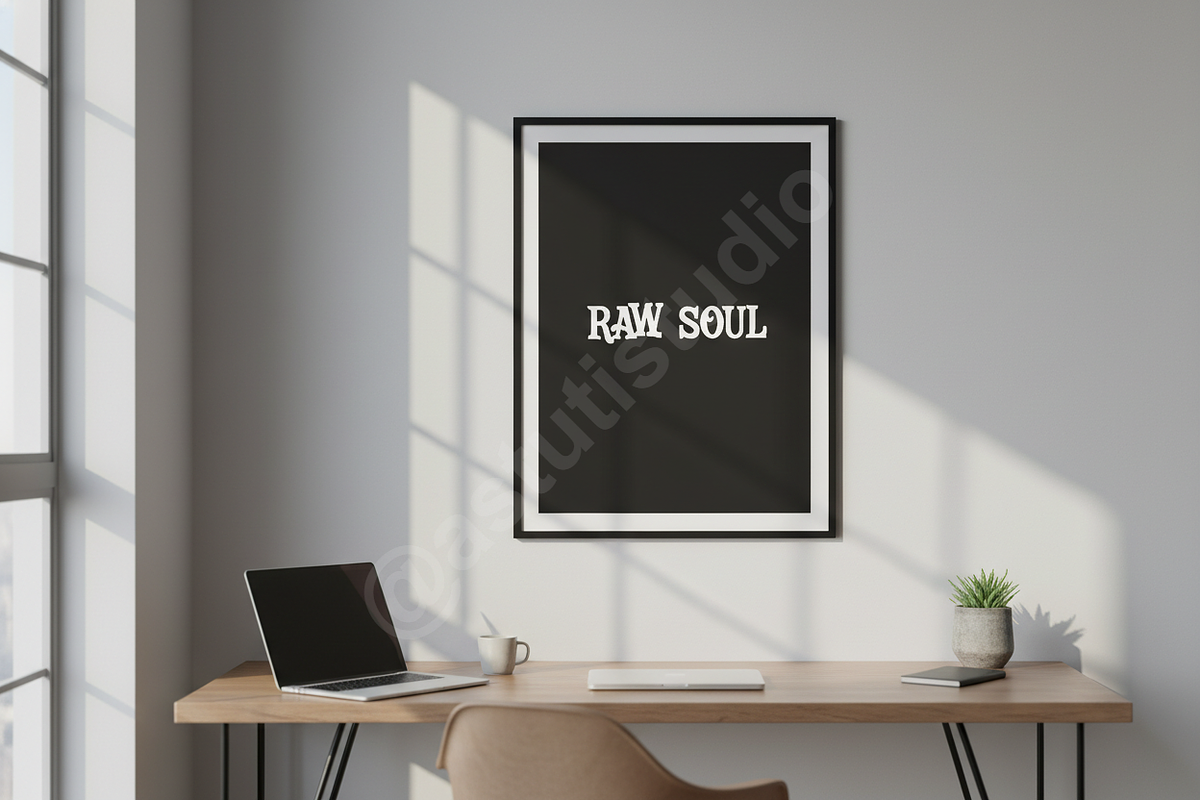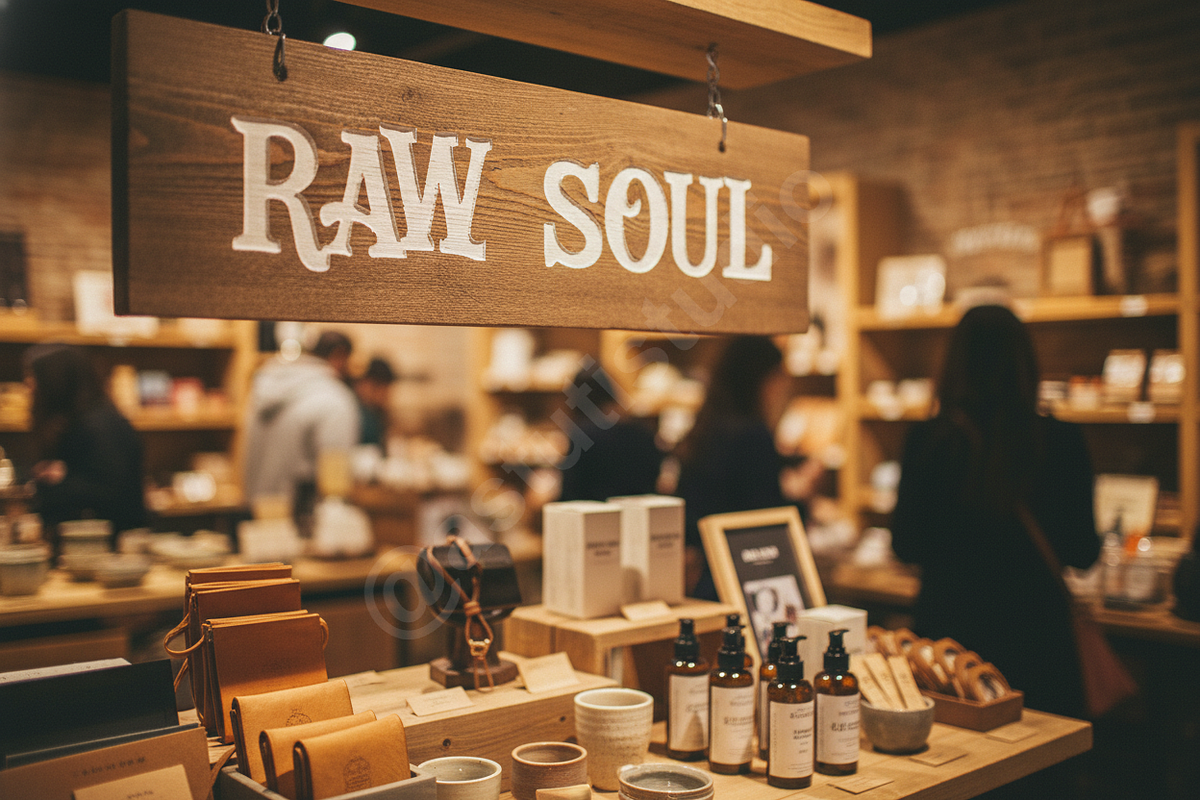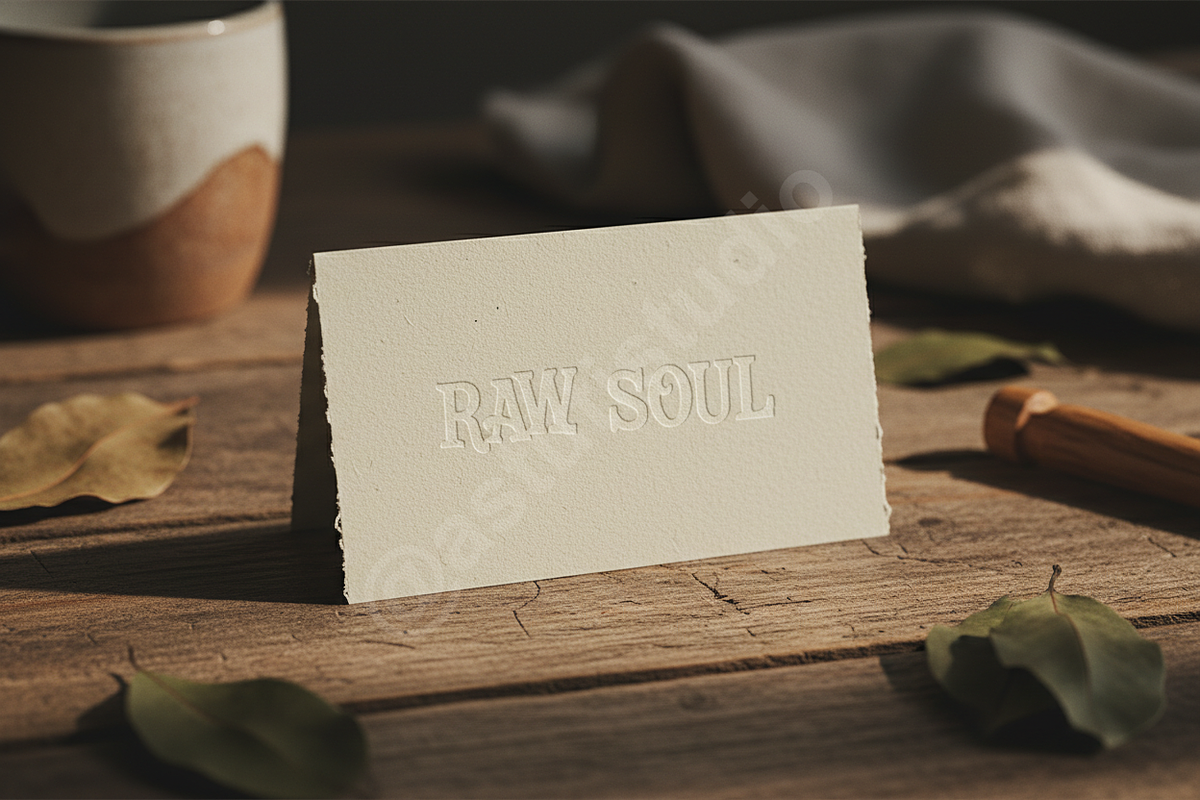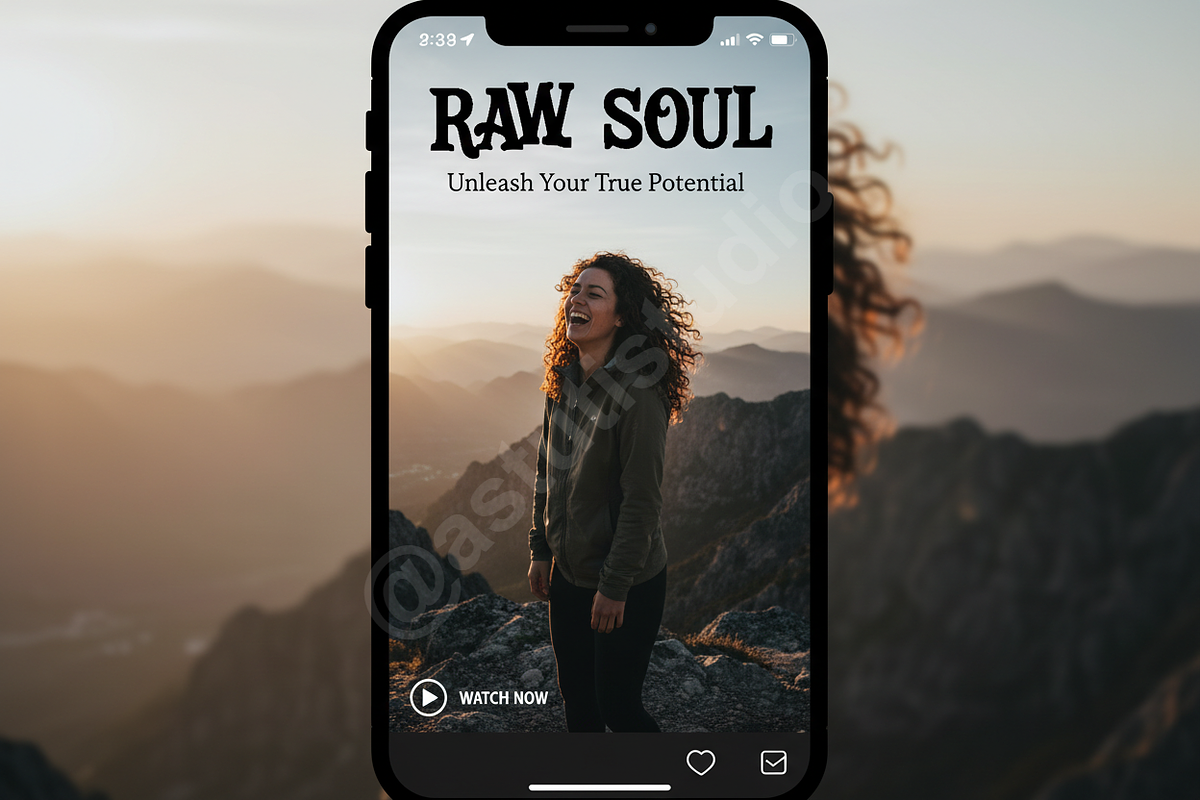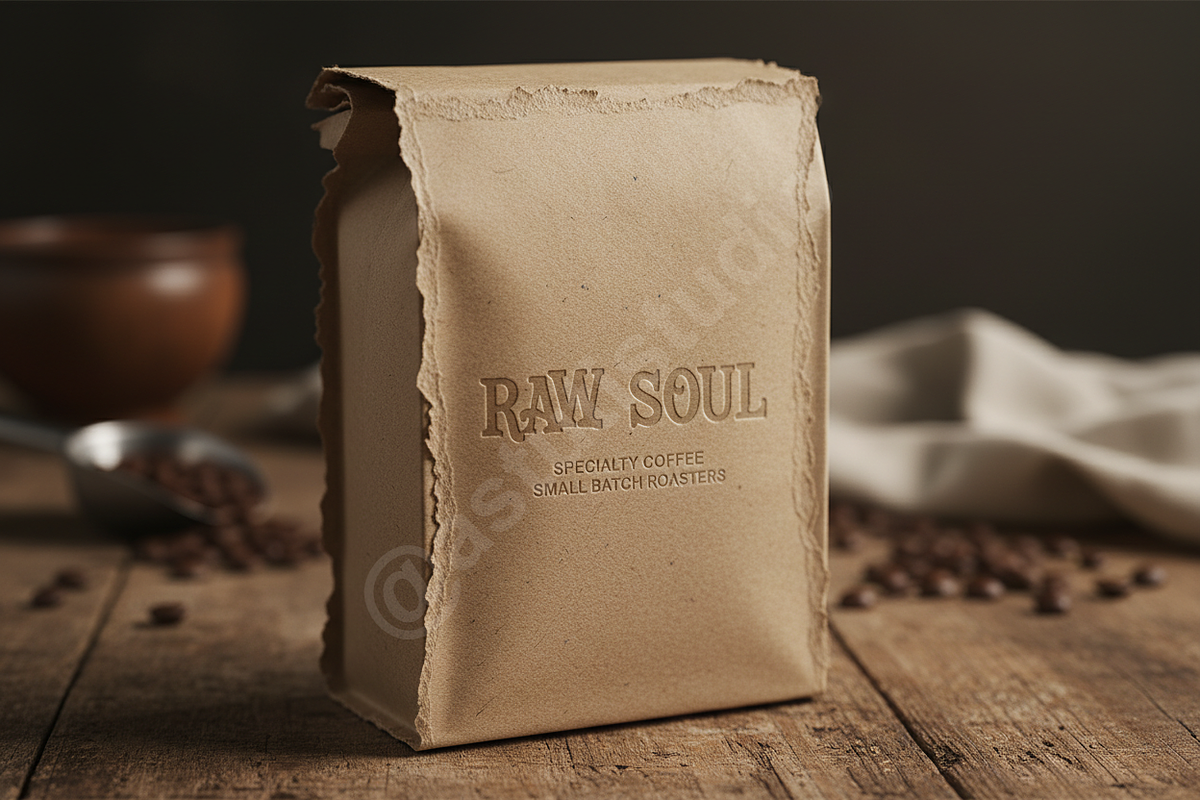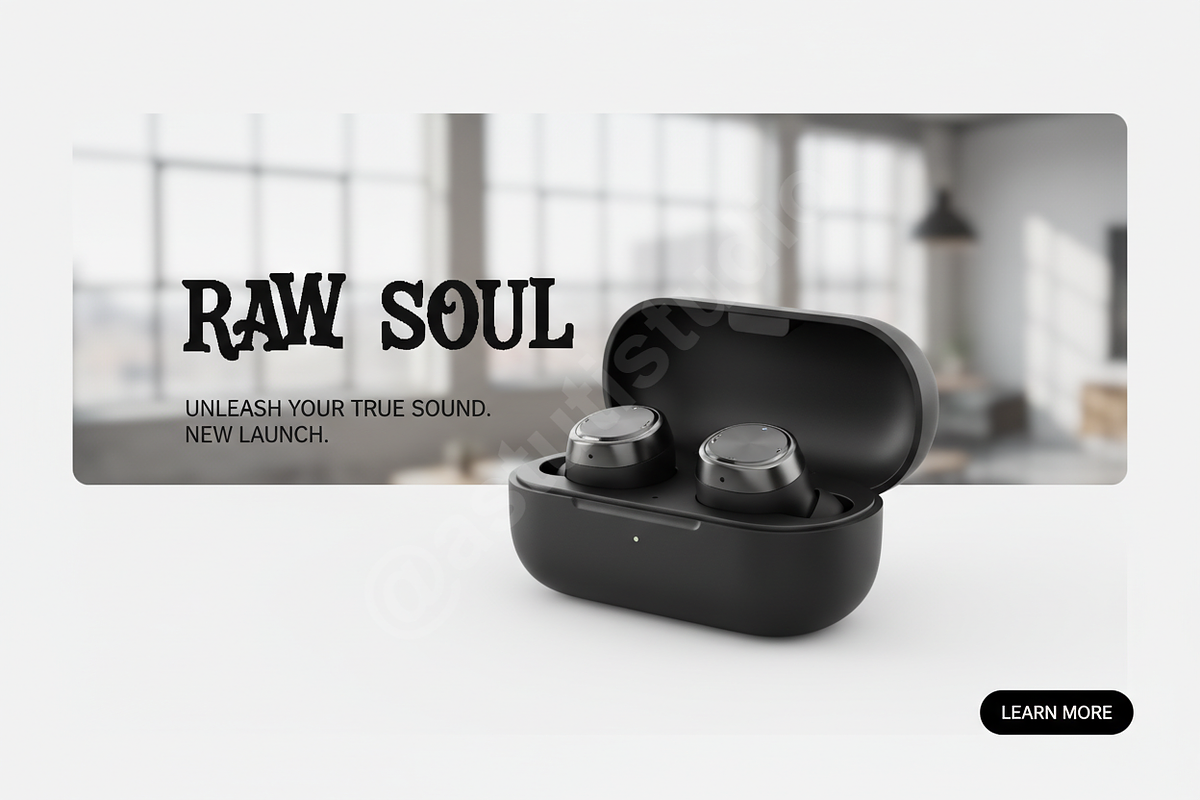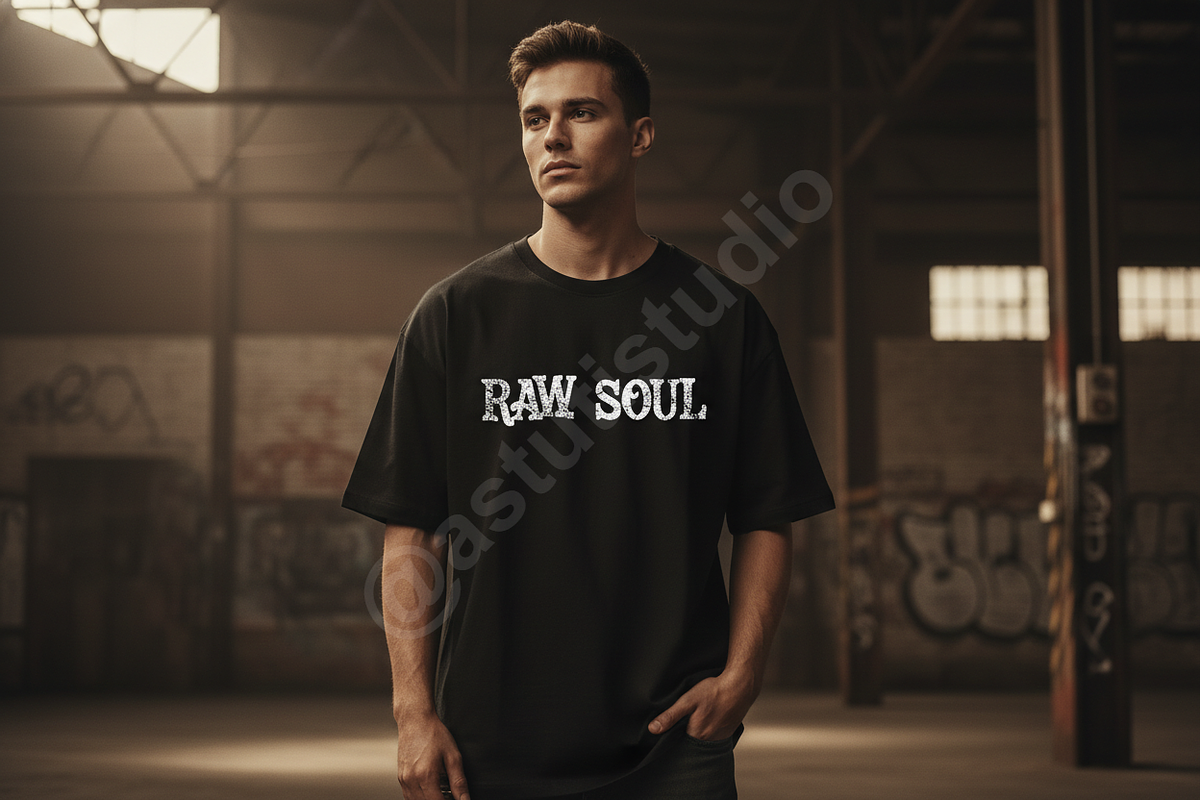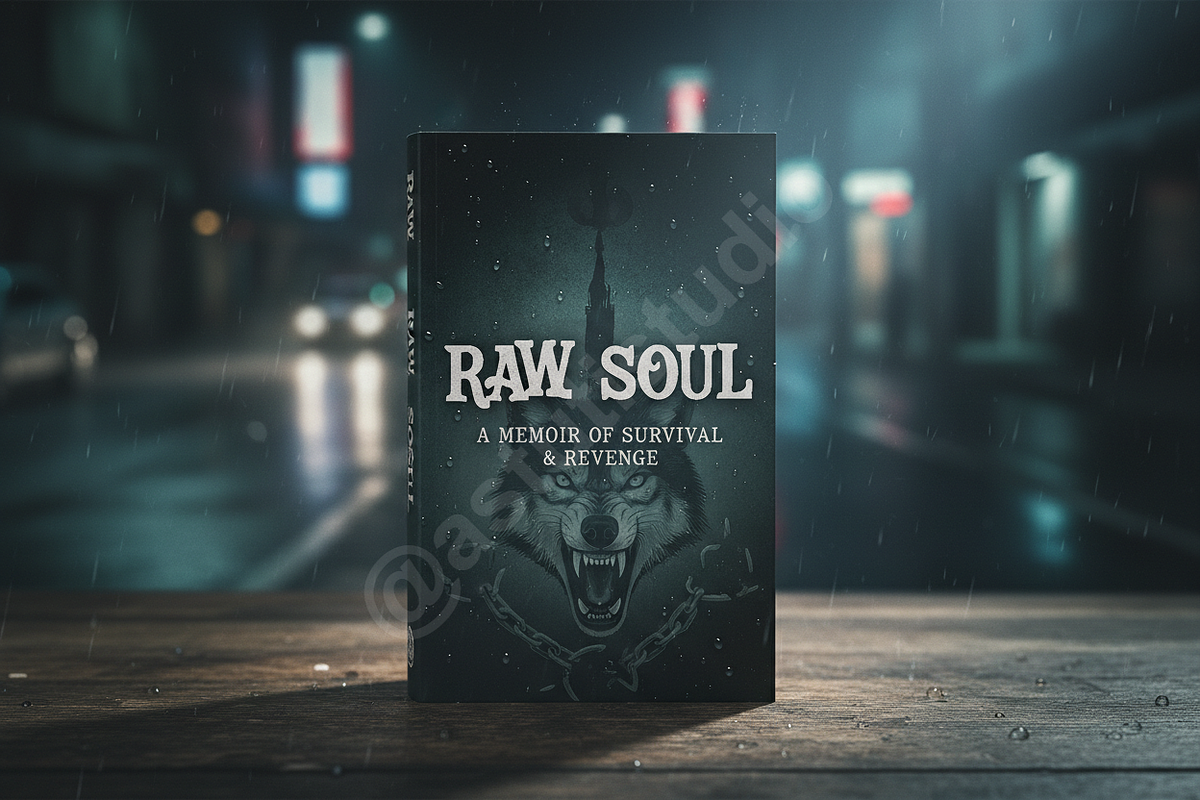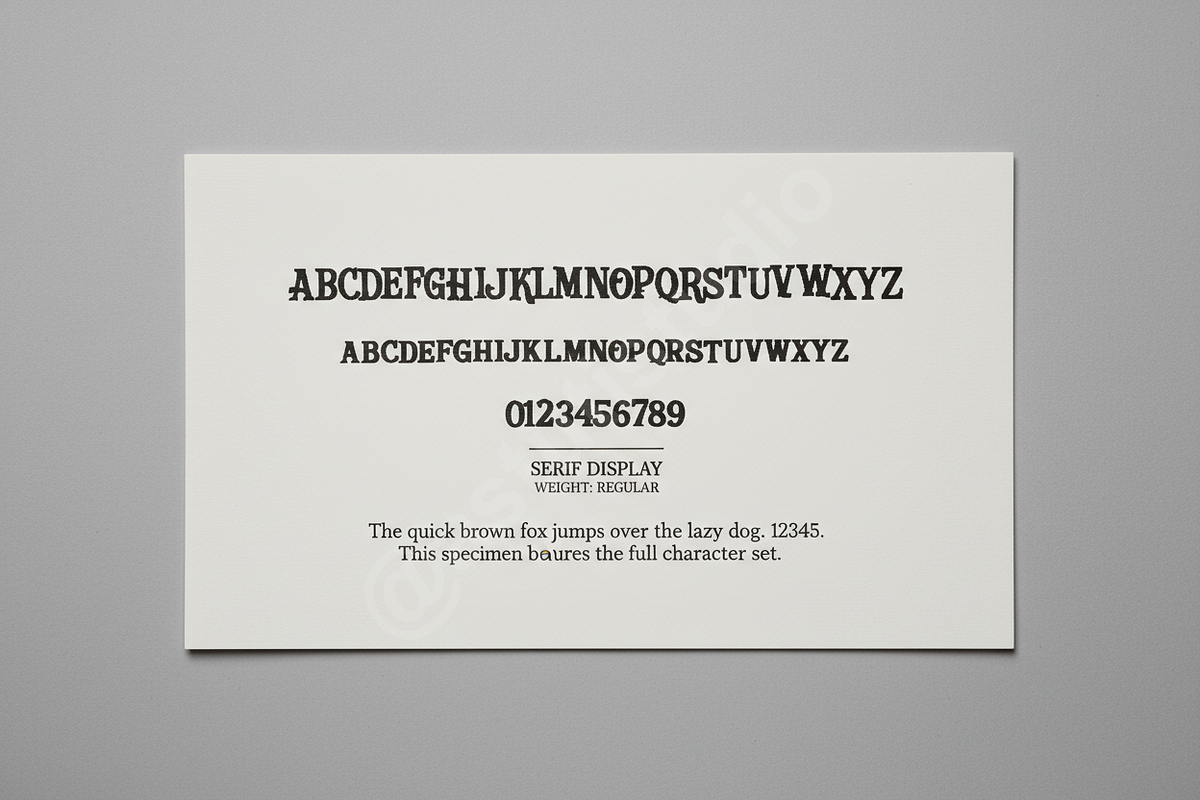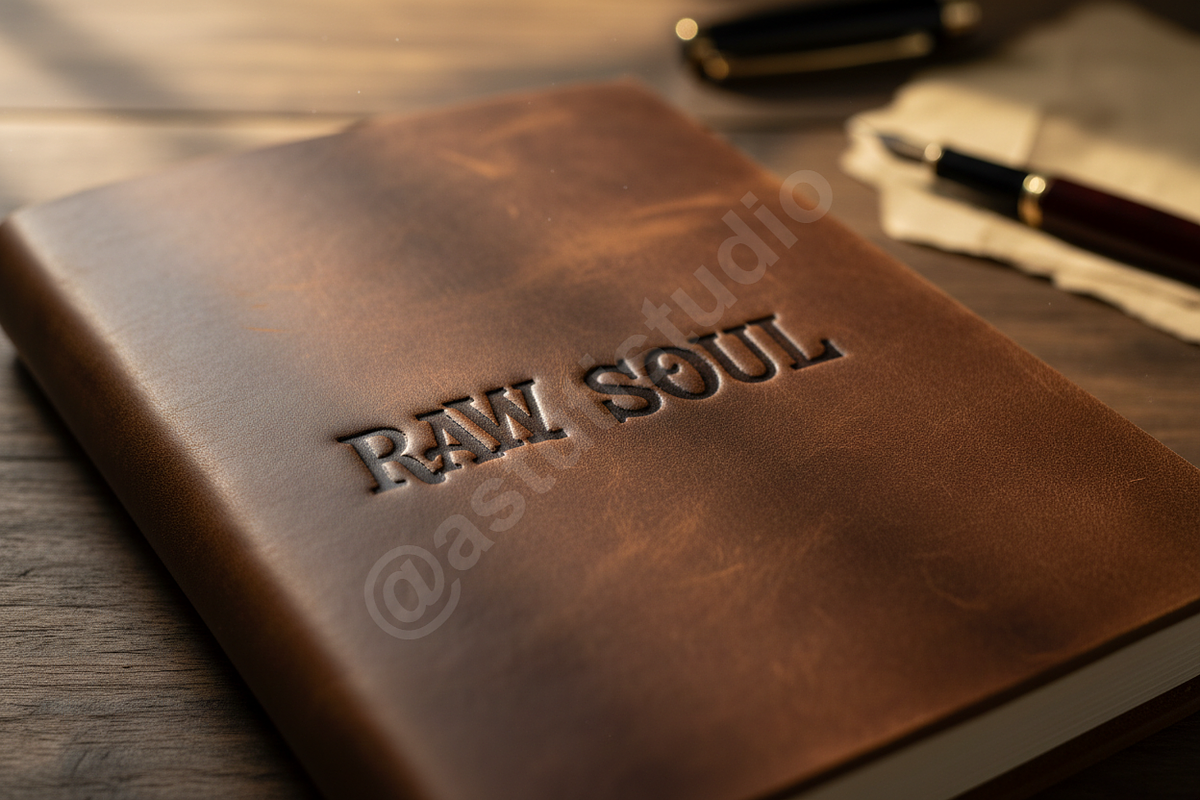
Getuwi — Modern Luxury Display Serif
### Introduction Getuwi is a meticulously crafted modern display serif font designed to elevate your creative projects to a new level of sophistication. Characterized by its sharp edges, high contrast, and refined curves, Getuwi captures the essence of luxury and timeless elegance. It is the perfect choice for designers aiming for a premium, authoritative aesthetic across all platforms, ensuring your message is delivered with undeniable class.
### Key Features
- High-Contrast Letterforms: Provides immediate visual impact, ideal for monumental headlines and large displays.
- Extensive Ligatures and Alternates: Enhance design flexibility and provide custom typographic styling for truly unique layouts.
- Optimized for Digital and Print: Excellent readability and crisp rendering across editorial layouts, luxury packaging, and high-resolution digital media.
- Versatile Application: Perfectly suited for luxury branding, high-fashion editorials, refined product packaging, and elegant social media campaigns.